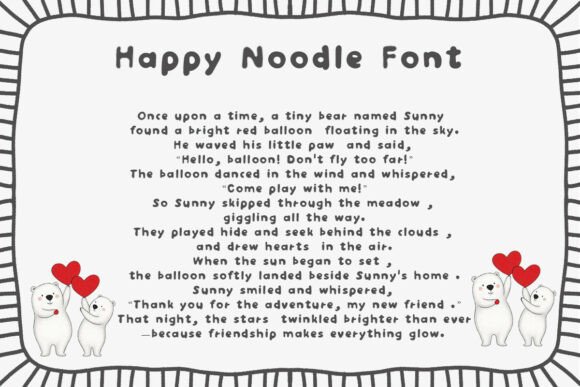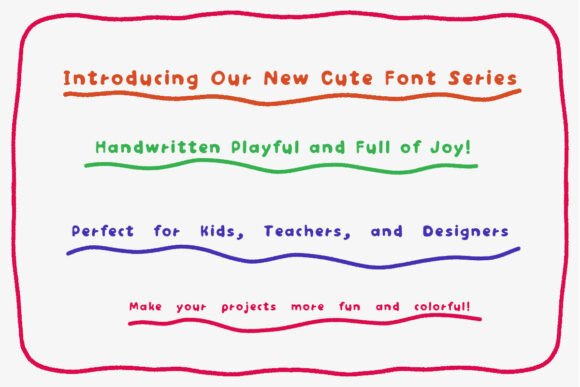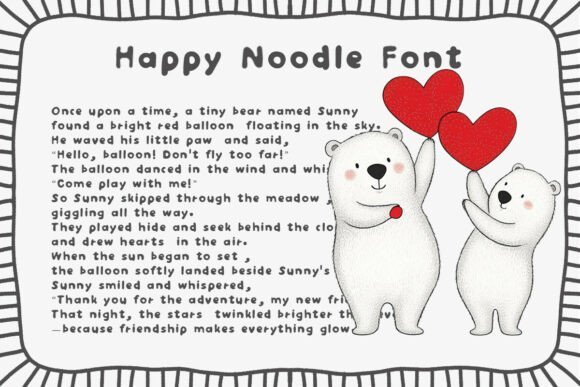
Introduction to Happy Noodle Font
Happy Noodle Font is a cute and playful handwritten typeface perfect for children’s projects, teachers, and fun holiday designs.
Its rounded letters and cheerful strokes make every word look friendly and full of joy πŸ’• This adorable font is ideal for classroom worksheets, kids’ journals, labels, cards, and storybooks.
Key Features of Happy Noodle Font
Why Choose Happy Noodle Font?
Happy Noodle Font offers exceptional quality and versatility, making it a valuable addition to your design toolkit. Whether you’re creating for personal projects or commercial use, Happy Noodle Font delivers professional results.